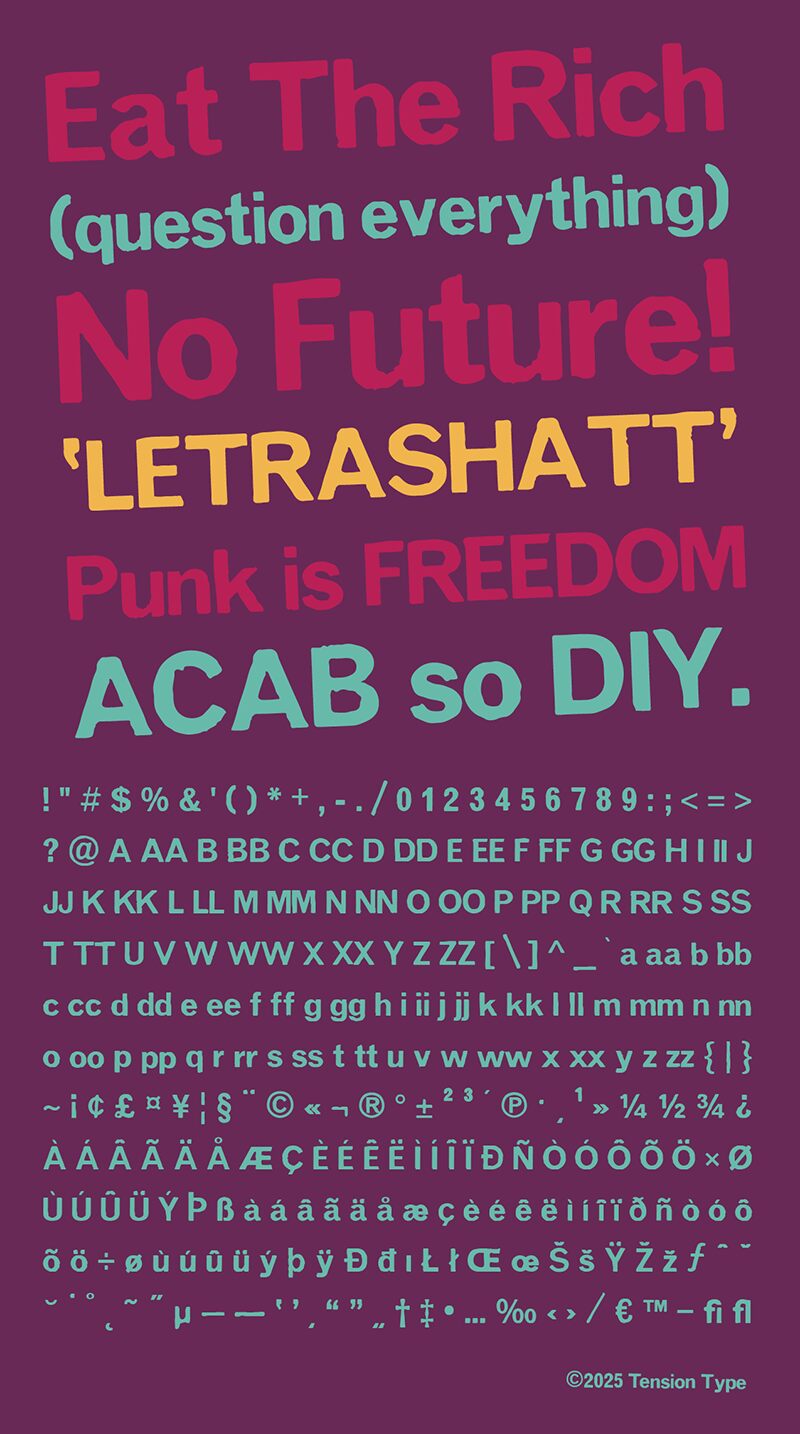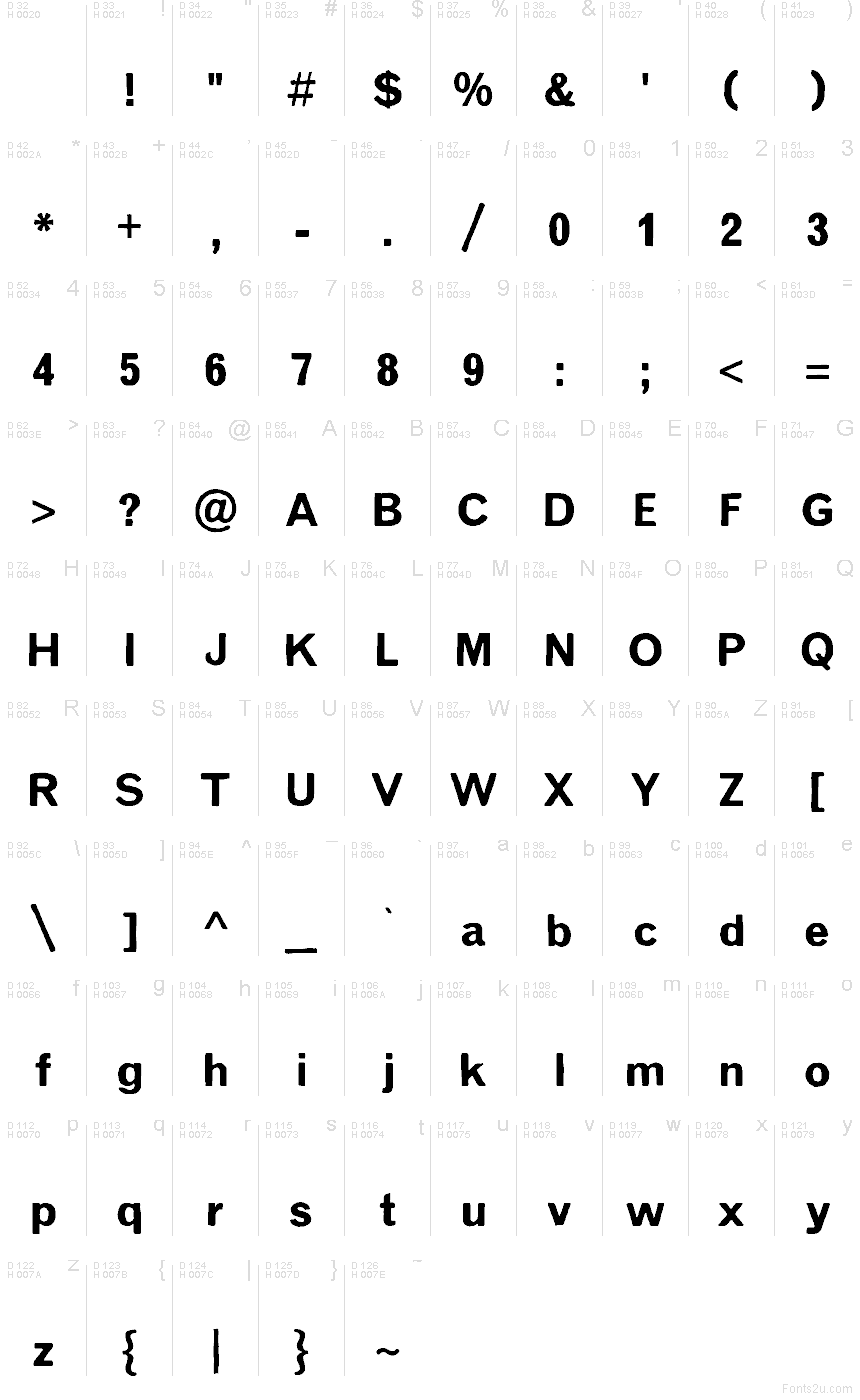
Letrashatt font by Tension Type is a free eroded headline typeface with a bold, battered edge that feels like it’s been pulled off a weathered gig flyer. Its chunky, rounded forms are scuffed and chipped just enough to feel raw without turning into noise, giving text a tactile, ink-smeared presence. The letters sit close and heavy, creating blocks of copy that look stamped, scraped, and slightly chaotic in a very deliberate way.
Using Letrashatt, you can push attitude to the front of projects like rock or punk posters, album covers, streetwear branding, zines, bold packaging, movie titles, and gritty social media graphics. This free font shines when set large, where every roughened curve and broken edge can breathe. For hierarchy, pair Letrashatt with a clean geometric sans in smaller sizes to keep layouts readable while the distressed headlines do the shouting.
This is a Letraset type based on an old scan of Letraset Gothic Montype 216 that I found in files from a project a few years ago.
During the holidays I created a new font from that scan.
A lettraset type, a bit distorted and aged. I found on old scan of Letraset Gothic Montype 216 in some files from a project from a few years back. It was the holidays so I made a new font from it. Its not perfect, but Letraset never was either.